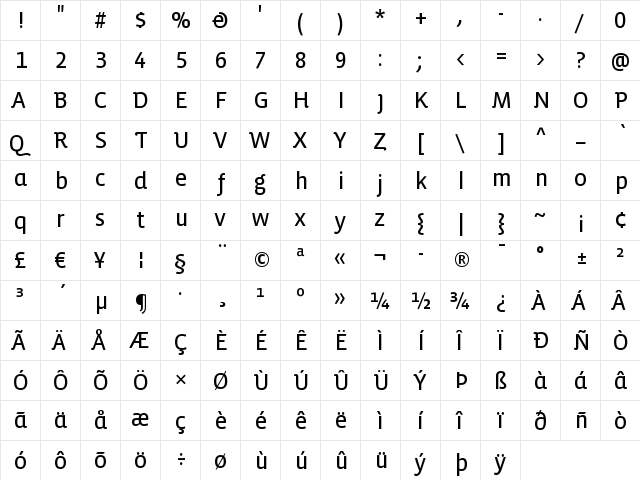
VistaSansAltReg Regular
Design Context for VistaSansAltReg Typeface
VistaSansAltReg takes a measured approach to typography — its balanced proportions and neutral character make it a reliable workhorse for both digital and print work.